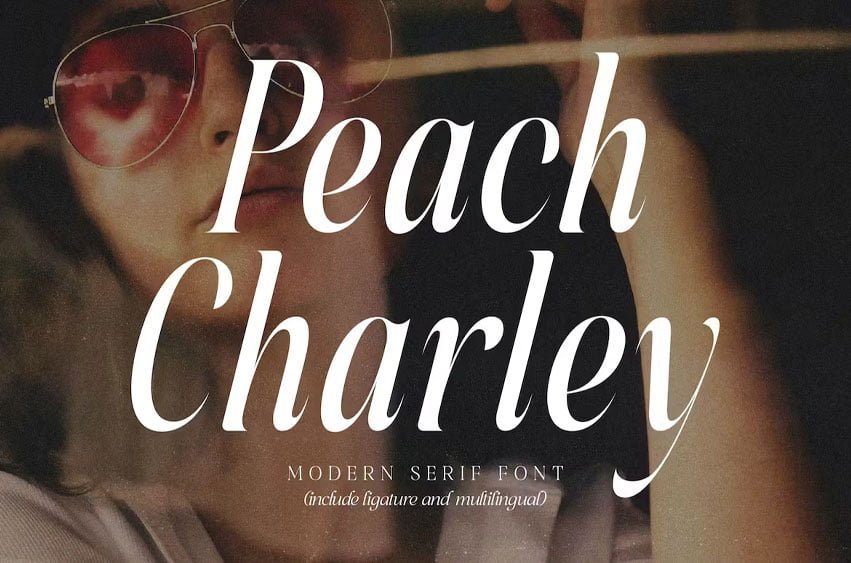
Peach Charley Font is suitable to complement your digital and printed creative products. This font is perfect for posters, social media posts, branding, personal projects, etc.